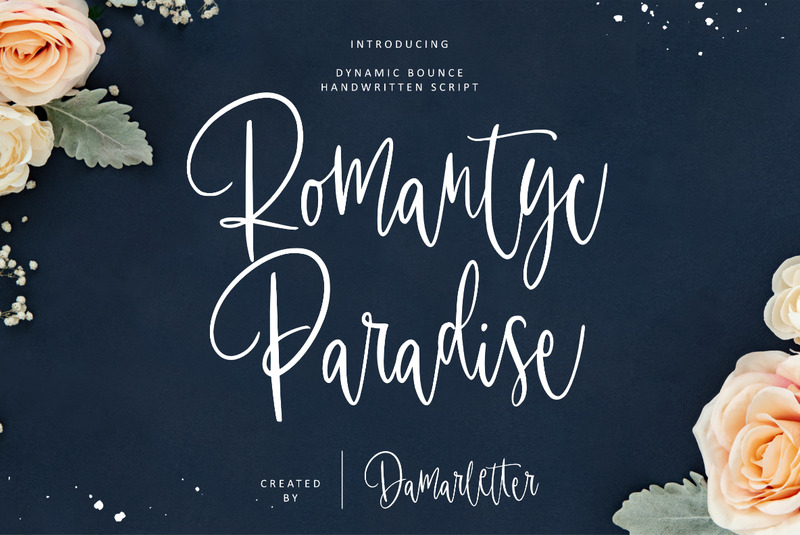
Romantyc Paradise – Bounce Script
Romantyc Paradise is consisting of a fashionable signature-style script, that looks elegant and classy. This font was created to look as close to a natural handwritten as possible. It is PUA encoded which means you can access all of the glyphs and swashes with ease!